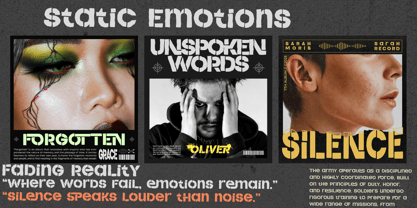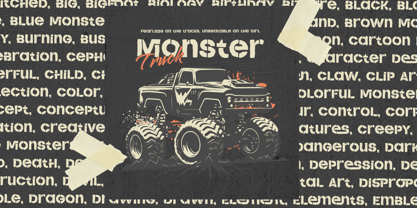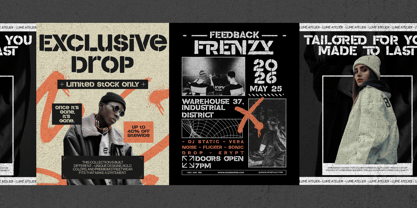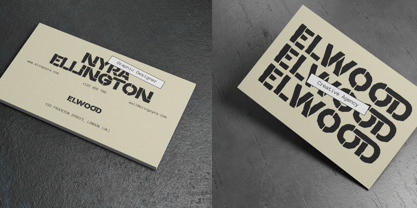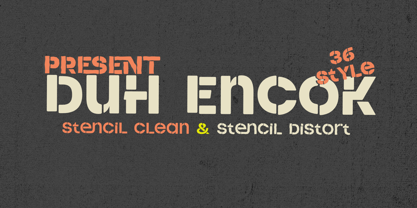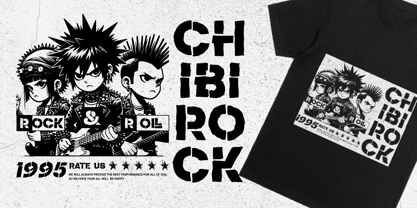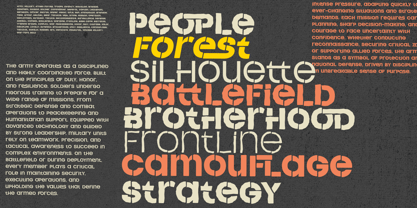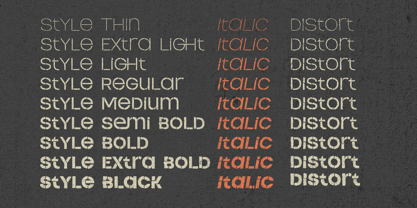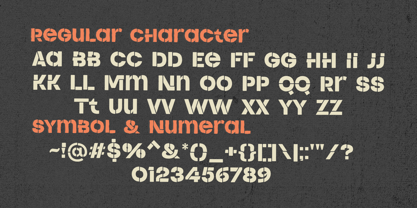
Duh Encok
by MysticalType
The Duh Encok Font Family was designed by Candi Erwanto and published by MysticalType. Duh Encok contains 36 styles and family package options. More about this family
This typeface is a powerful fusion of classic stencil style and modern geometric design, resulting in a bold, precise, and highly impactful visual identity. Core Characteristics The font is inspired by the stencil concept, featuring distinctive cuts or gaps within each letterform. These elements are not merely decorative—they reflect the authentic industrial aesthetic derived from traditional stencil techniques. Each character is constructed using clean geometric foundations—circles, straight lines, and sharp angles—creating a look that is modern, minimal, and highly structured. With its bold weight and strong contrast against the background, this font is designed to stand out and immediately capture attention. Visual Tone & Style This typeface delivers a unique combination of: Modern and futuristic Industrial and mechanical Urban and bold It is especially suitable for themes related to technology, military, electronic music, or retro-futuristic design. Usage This is a display typeface, making it ideal for: Headlines and titles Posters (especially electronic music events) Branding and logos Visual identity design Industrial signage Modern magazine covers Due to its distinctive style, it is not recommended for long body text, as it may reduce readability in extended paragraphs. Technical Features This font comes with professional-grade features: OpenType Features Multilingual Support Precise Kerning & Metrics Alternative Ligatures Style Variations The typeface includes a total of 36 styles, offering extensive creative flexibility: 18 Normal styles + Italic 18 Distort styles + Italic The Distort variants add a more experimental and expressive touch, perfect for bold and dynamic compositions. Summary This font is an excellent choice for designers who want to create a strong, modern, and futuristic visual impact, supported by a versatile and extensive style family.
Designers: Candi Erwanto
Foundry: MysticalType